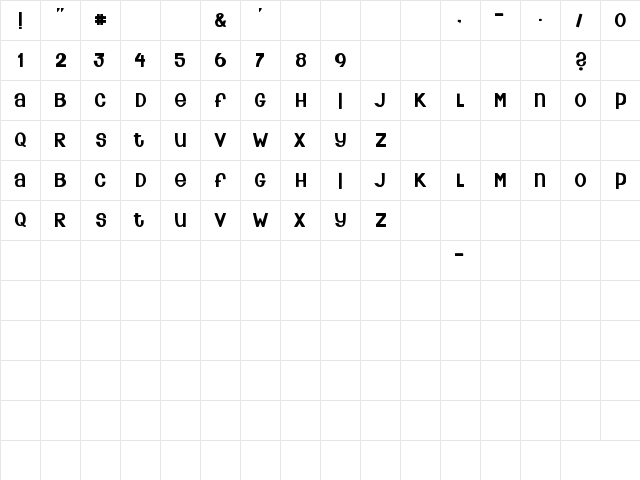
Too Much Paper! Regular
Design Context for Too Much Paper! Typeface
Too Much Paper! offers clean, dependable letterforms without strong stylistic allegiance, making it a practical choice for designers who need flexibility.
Pro Tip: Use Too Much Paper! in both headline and body roles to test its range before committing to a single application.